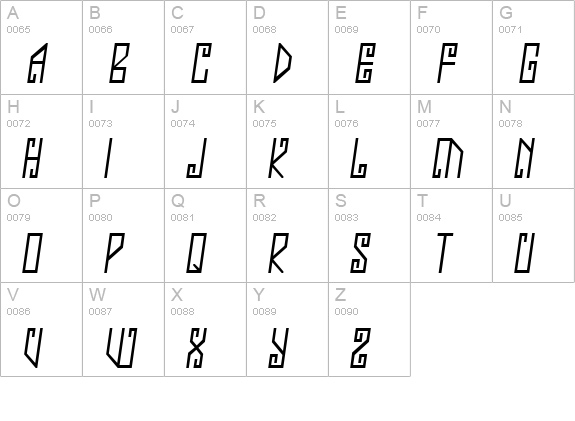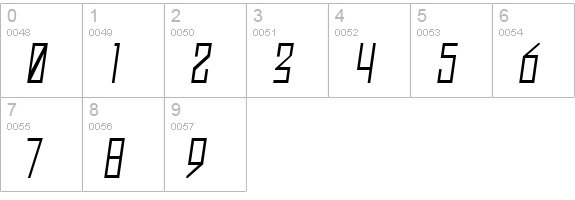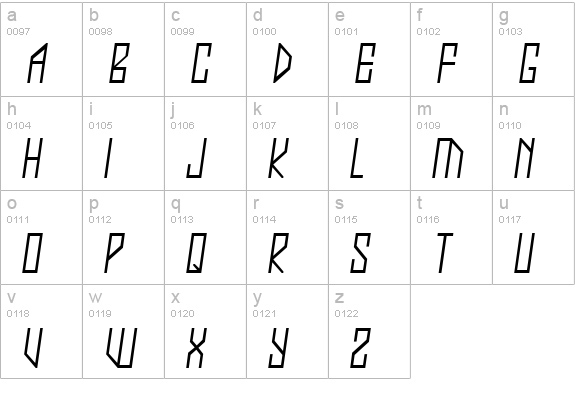
Jealousy Font Details
Below you can preview Jealousy in uppercase [A-Z], lowercase [a-z] and numbers [0-9]. You can also read the author's notes and license information before downloading.
Introducing Jealousy font, a captivating and versatile typeface that exudes elegance and sophistication. With its sleek lines and modern design, Jealousy is the perfect choice for any project that demands a touch of class. This font effortlessly combines traditional elements with a contemporary flair, making it suitable for a wide range of applications. The unique character of Jealousy font sets it apart from the rest, making it an excellent choice for logos, branding, invitations, and more. Whether you're looking to add a touch of glamour to your designs or simply want to make a statement, Jealousy font is sure to impress. And the best part? Jealousy font is available for free download at FontsMarket.com. So why wait? Elevate your designs with Jealousy font today and experience the beauty and versatility of this stunning typeface.